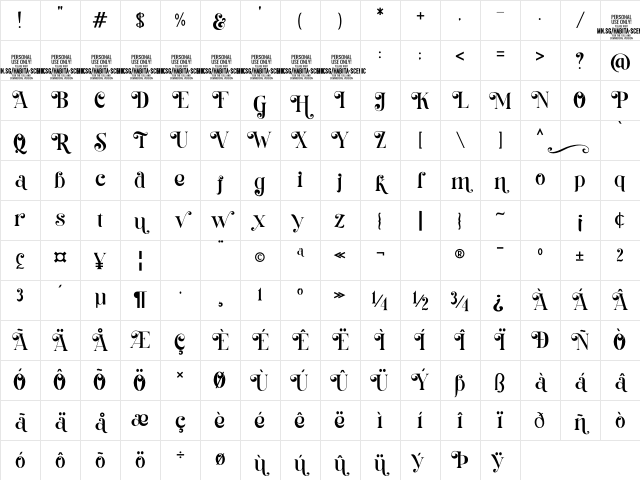
Habita Scenic PERSONAL USE Regular Free Font
Habita Scenic PERSONAL USE Regular
Foundry: Mans Greback AB
Designer: Mans Greback
Design Context for Habita Scenic PERSONAL USE
Habita Scenic PERSONAL USE is a composed and adaptable typeface that performs quietly and consistently across a wide range of design contexts.